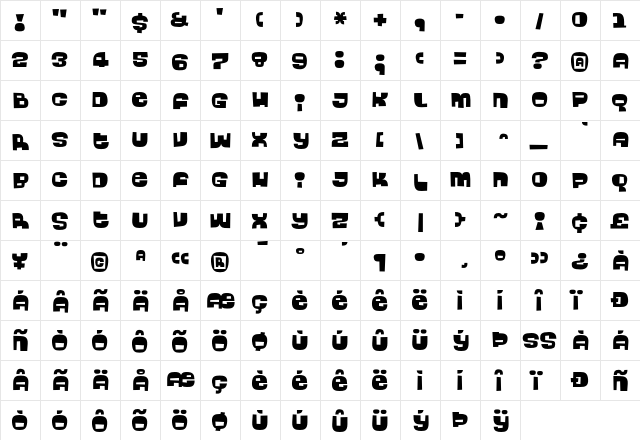
Bingo Regular
| Foundry | n Hughes . A Device font |
Design Context for Bingo Typeface
Bingo is a composed and adaptable typeface that performs quietly and consistently across a wide range of design contexts.